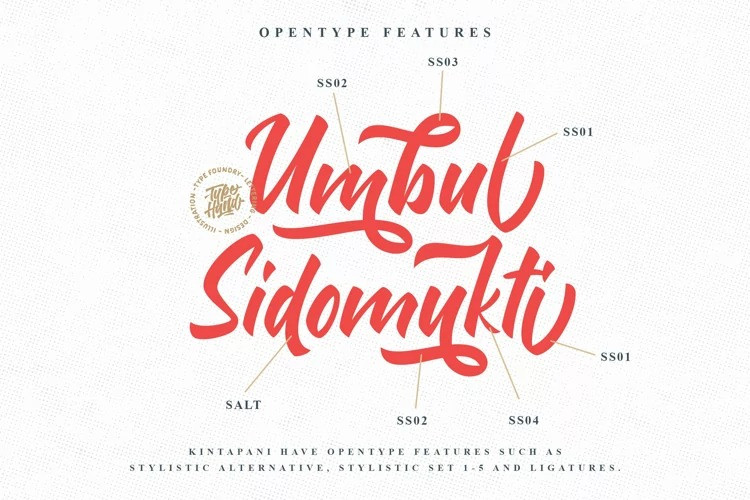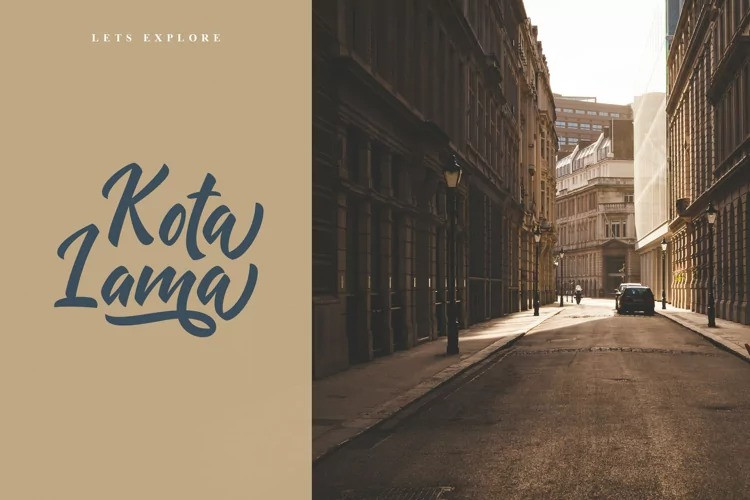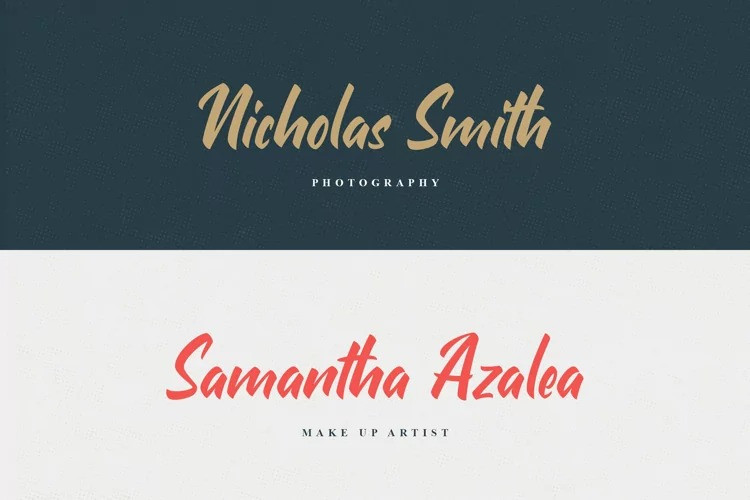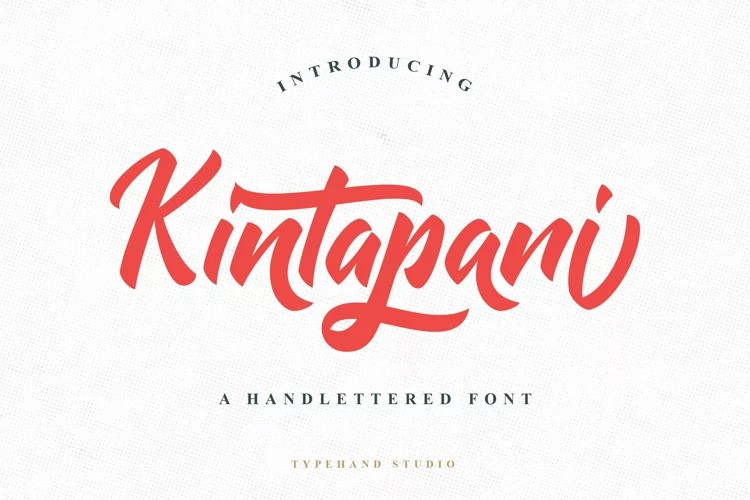
Kintapani Script Font is a dazzling handwritten typeface manufactured by Typehand Studio. This font is casual and beautiful with swash. Kintapani is perfect for branding projects, logo, wedding designs, social media posts, advertisements, product packaging, product designs, label, photography, watermark, invitation, stationery and any projects that need lettering script taste.